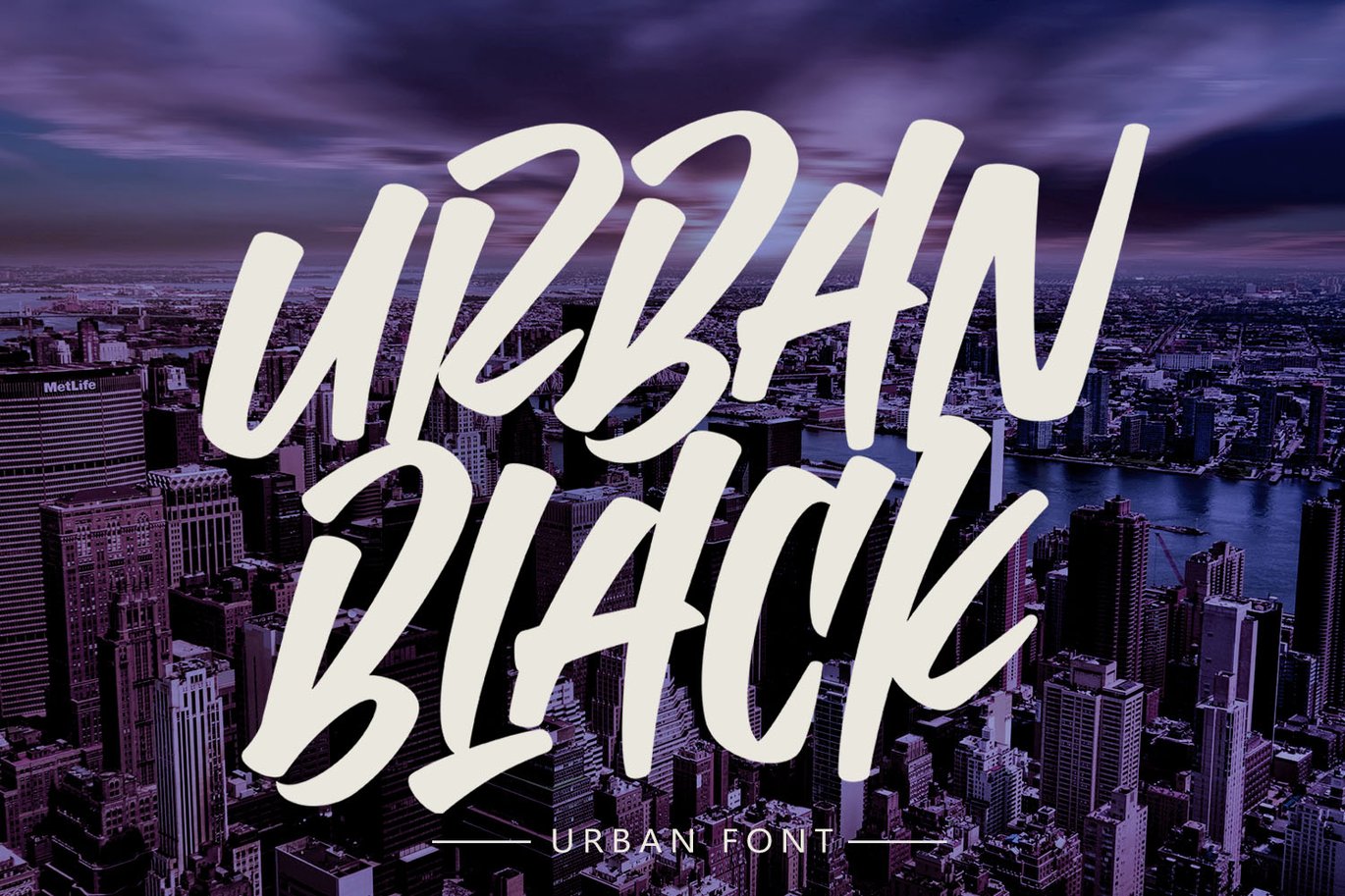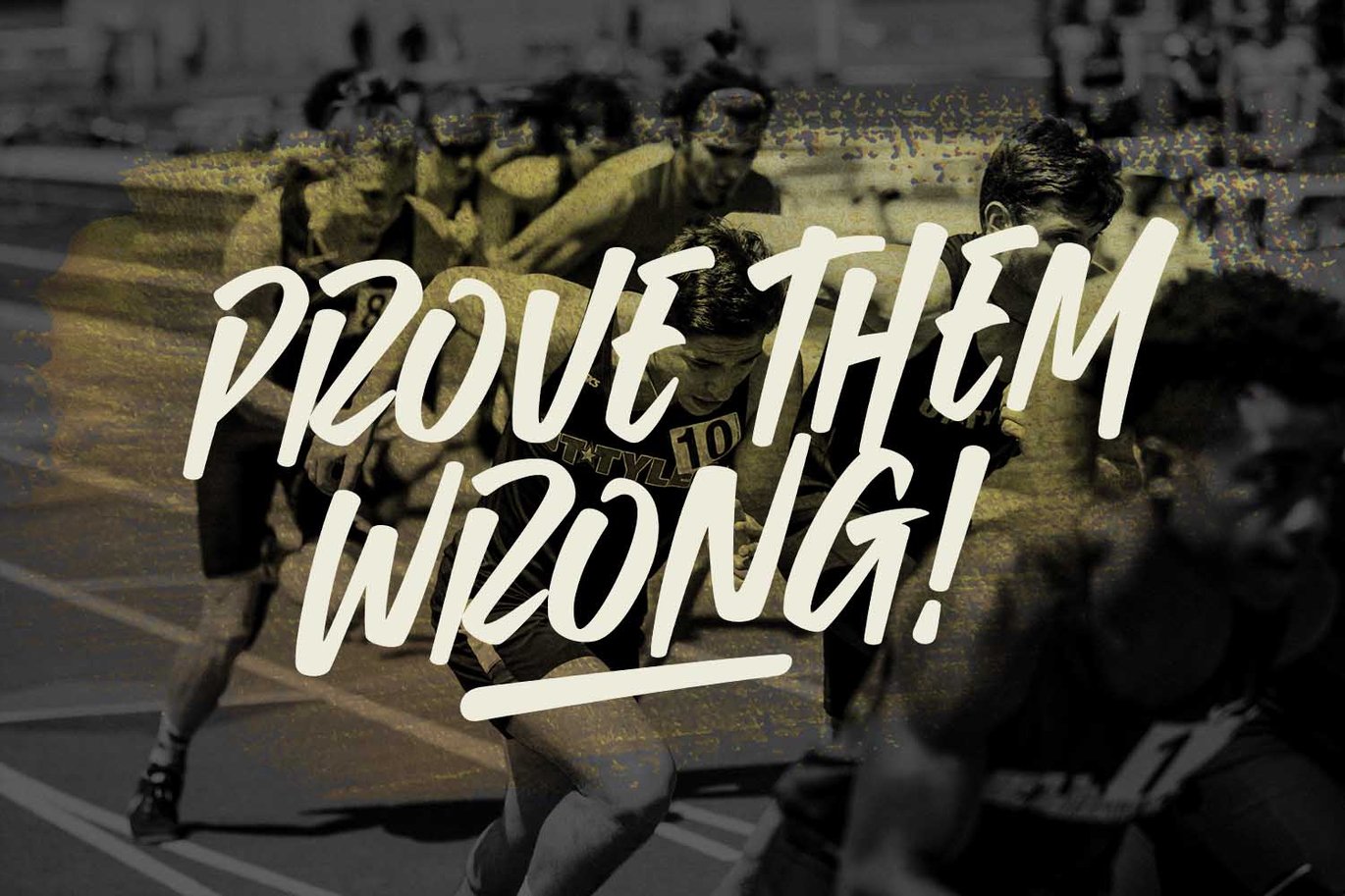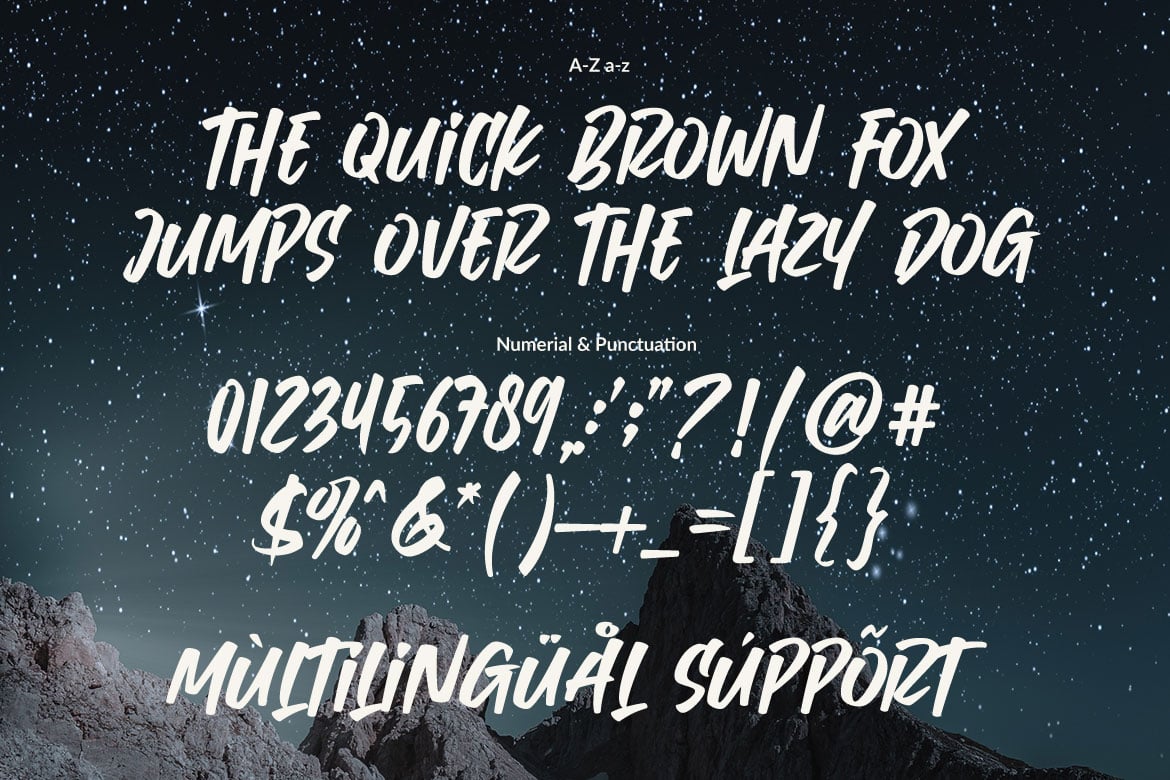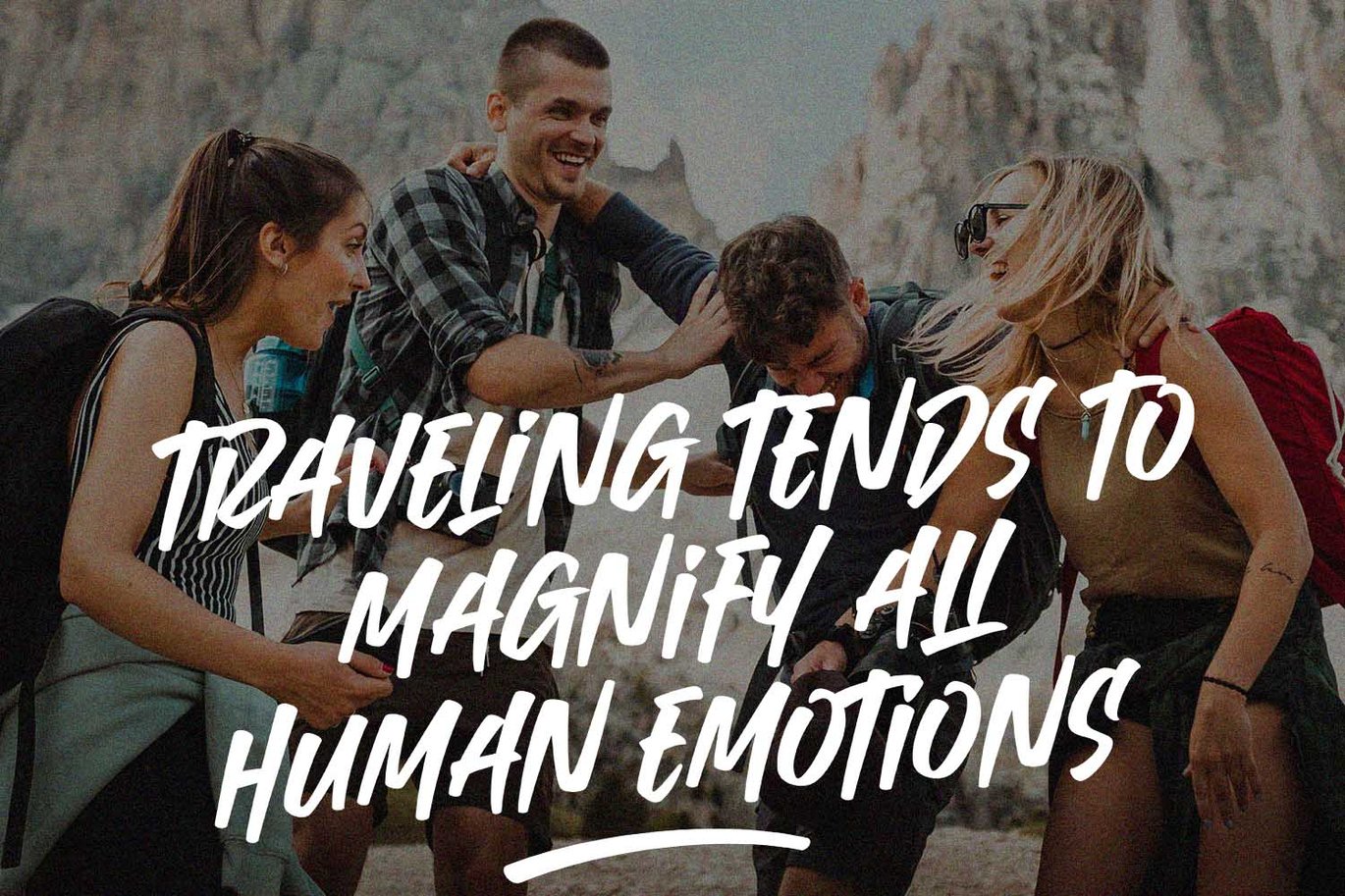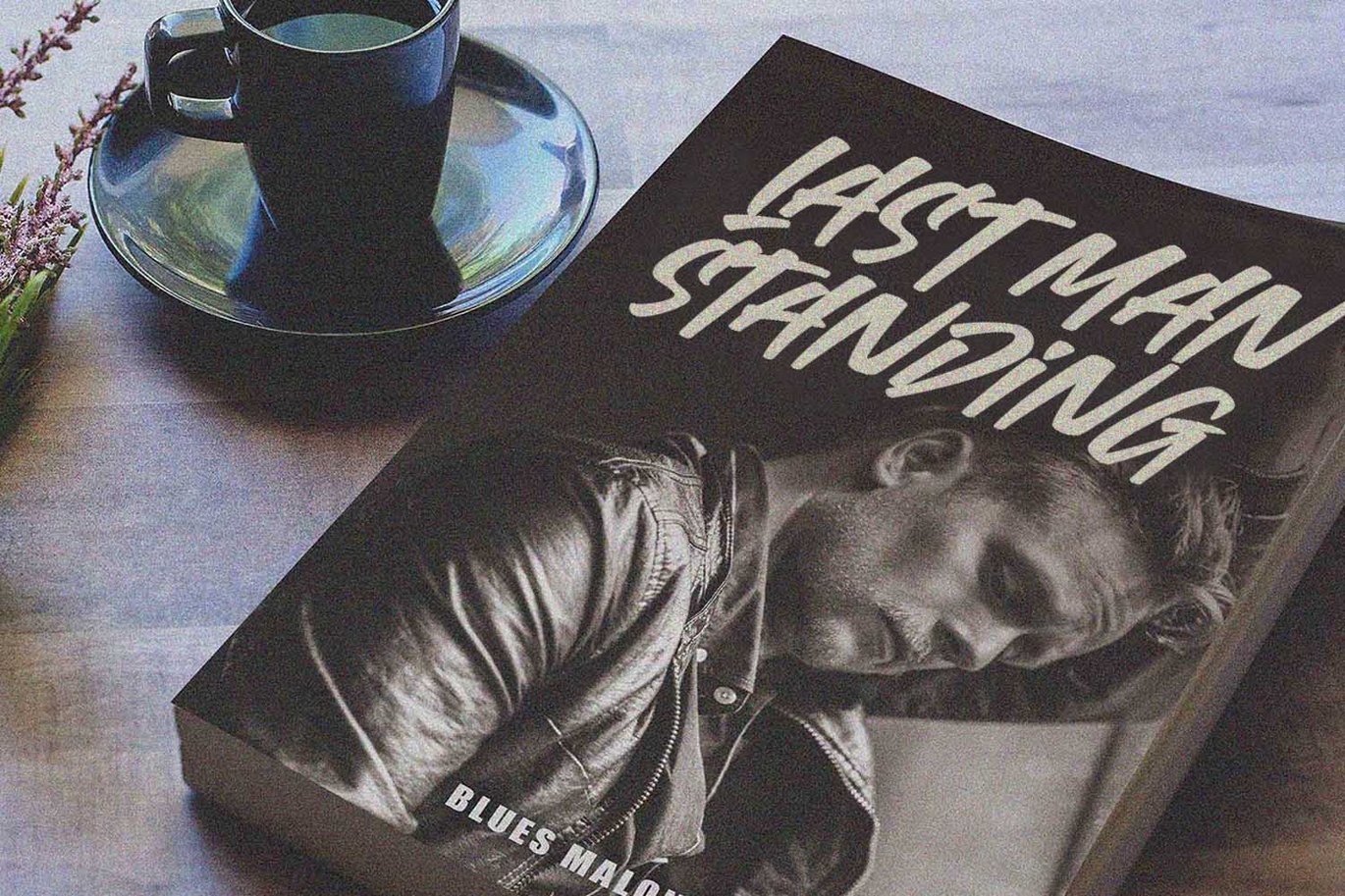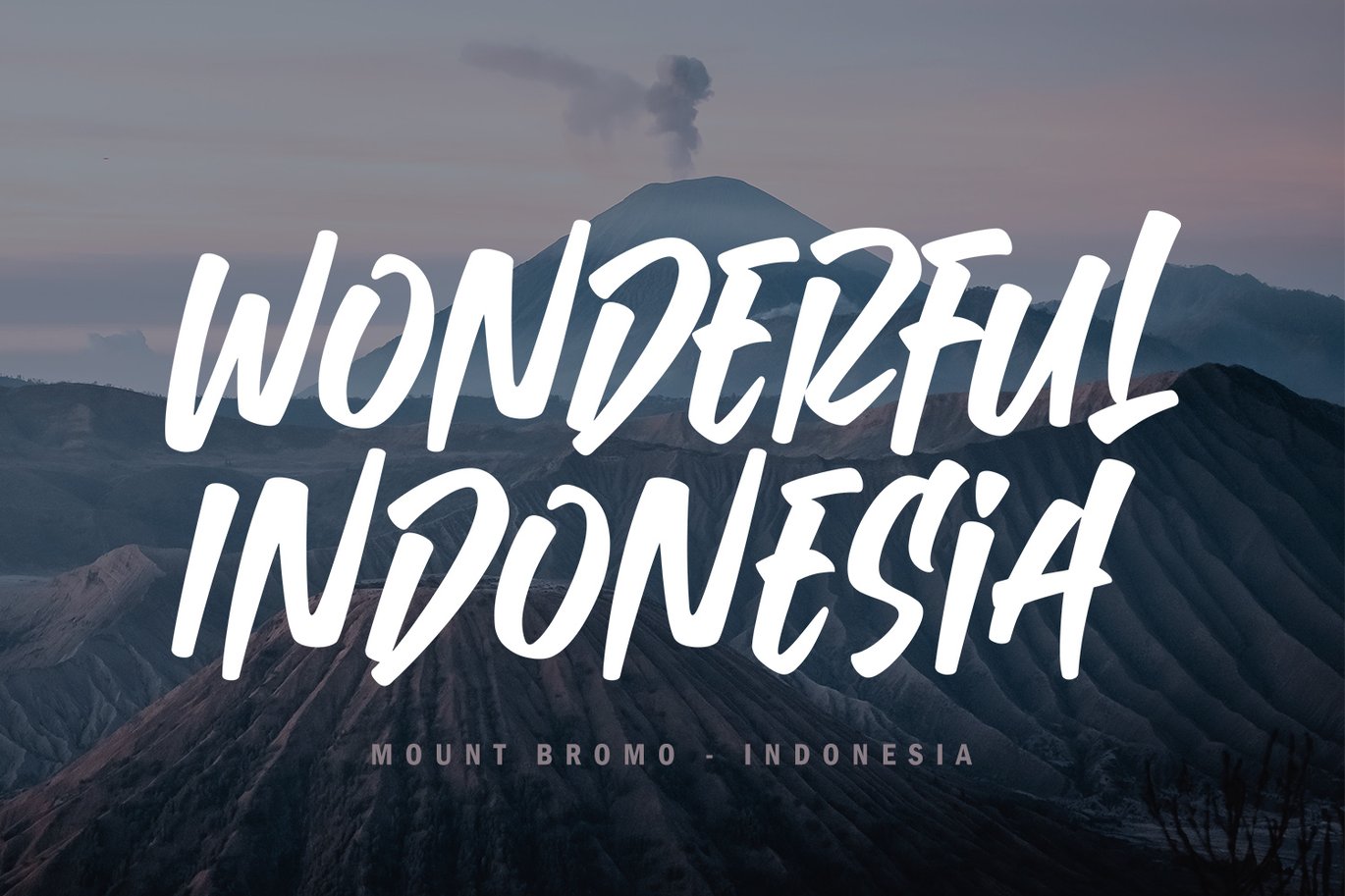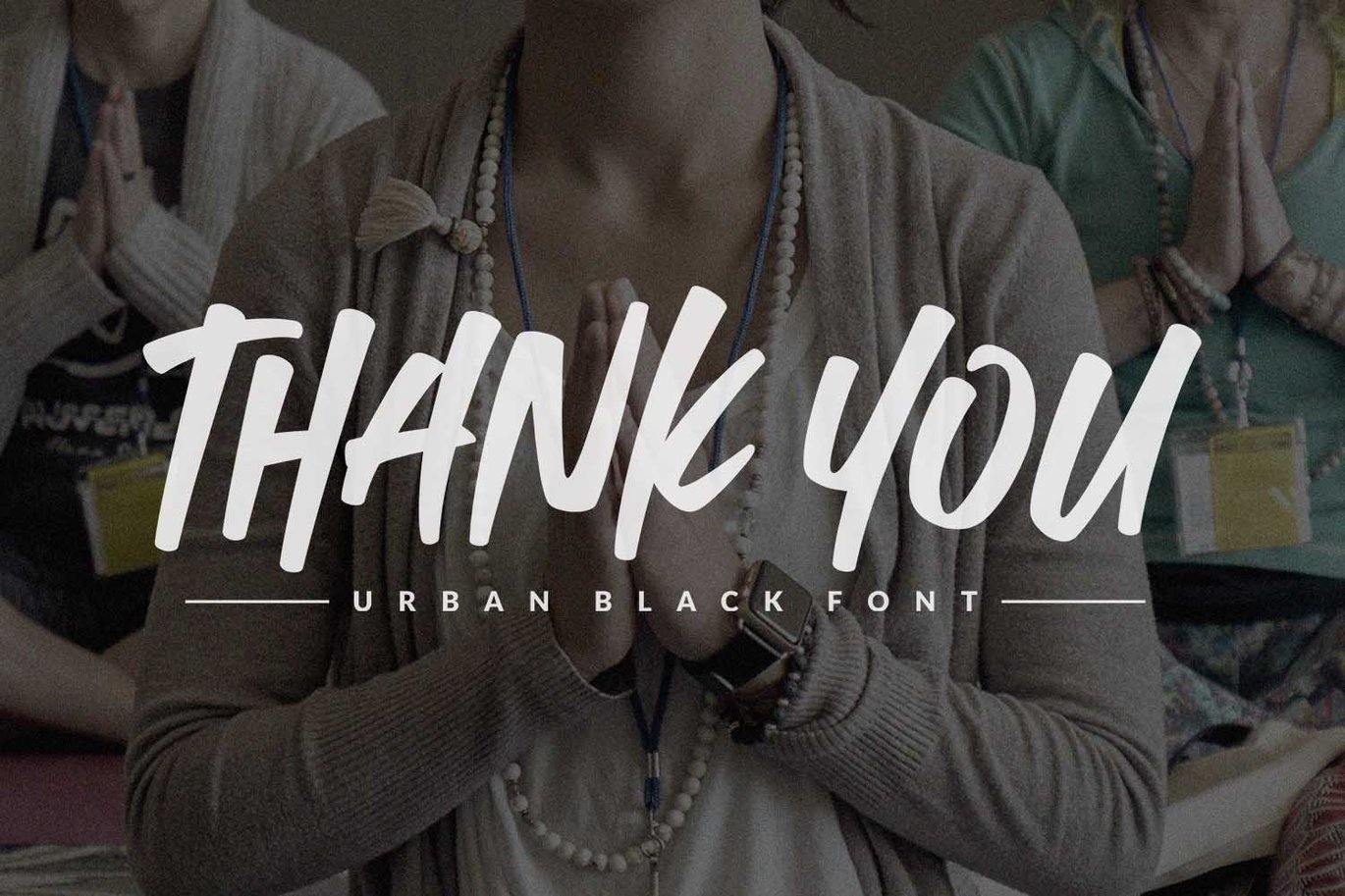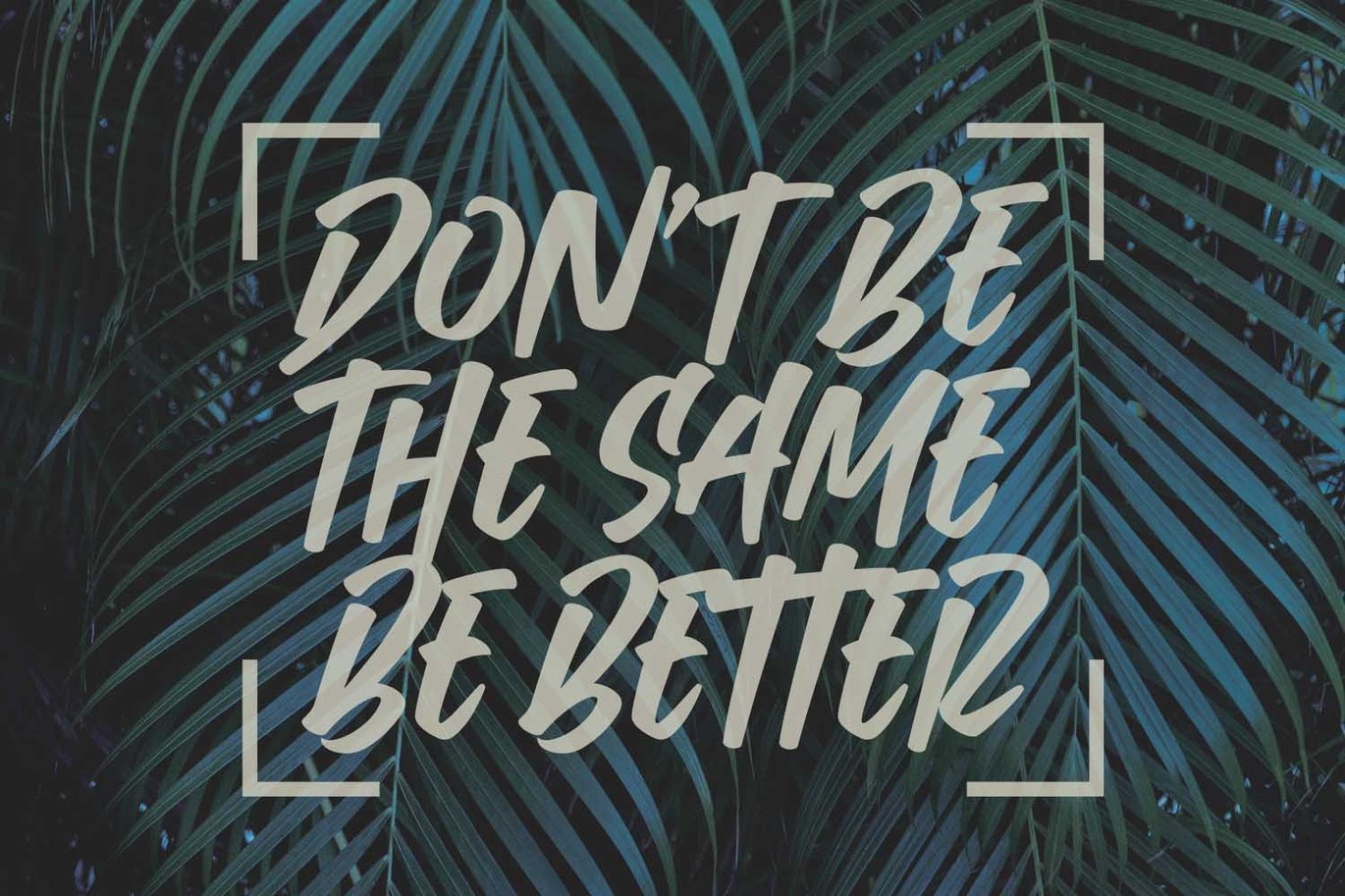
Urban Black – Urban Font
Urban Black is An Urban Font. This font was created to help you designing logotype with urban style for your Brand or your clients,
and also you can use it for designing all of the graphic stuff such as badge, sign, Esport, headline, urban design,
Poster, etc. Urban Black was designed for personal characters such as strong, confidence, dynamic, readable, Energic, dynamic, etc.